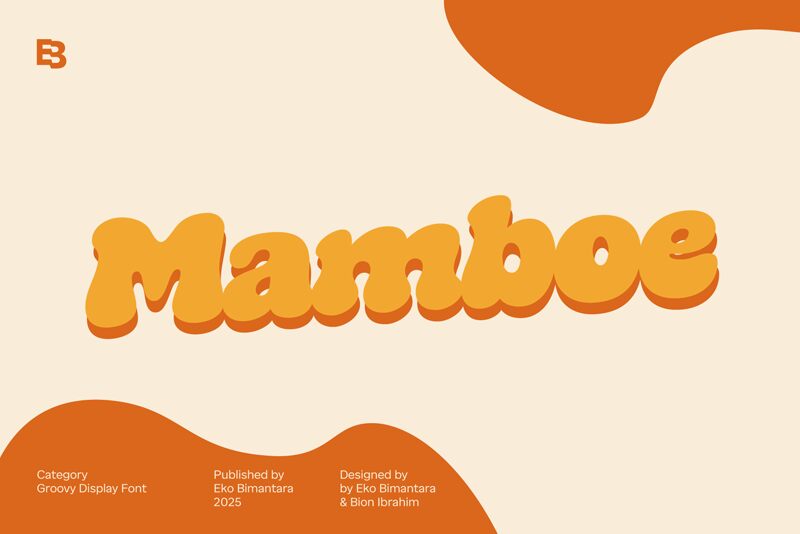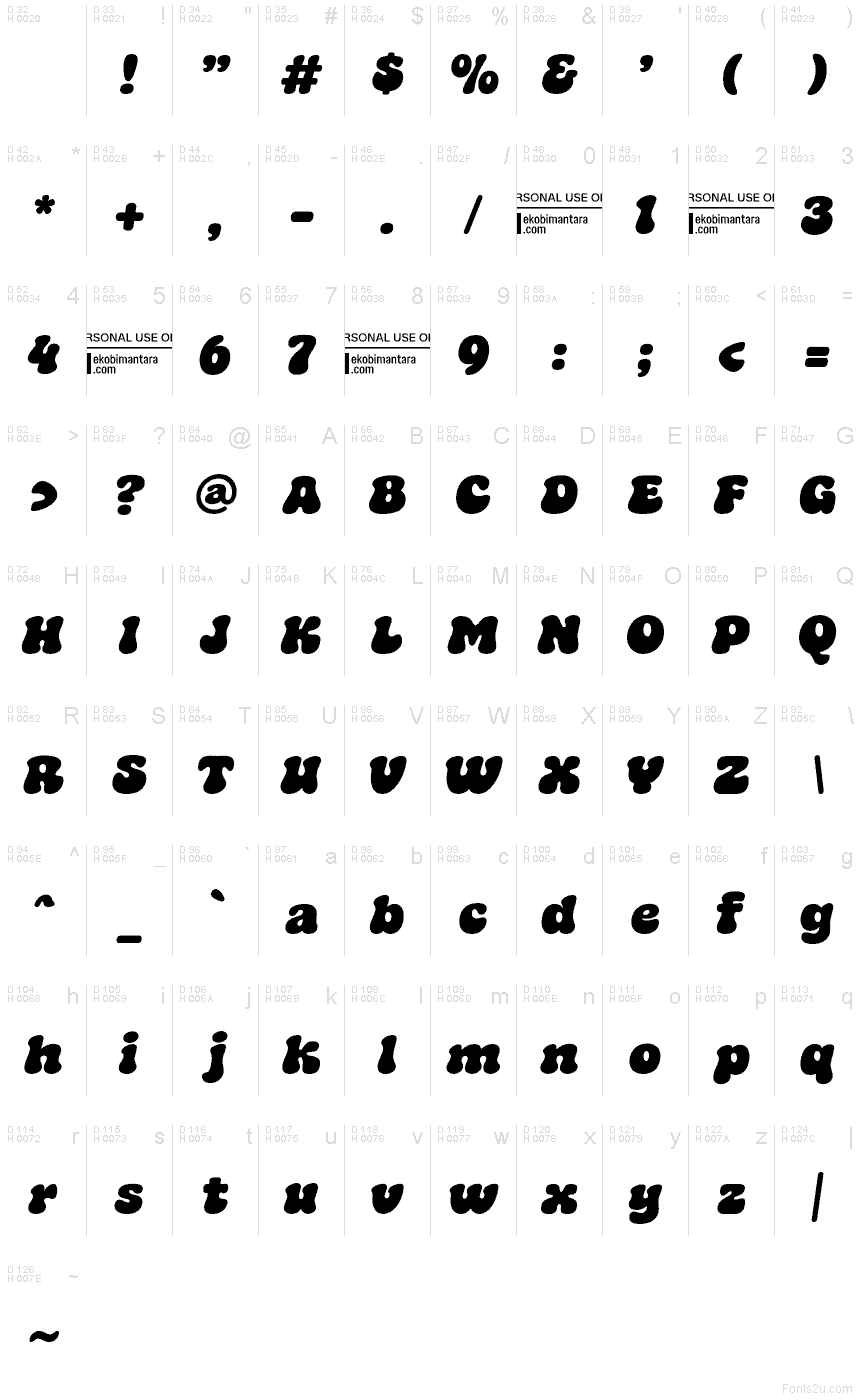
Mamboe Trial Regular
Mamboe font by Eko Bimantara is a free groovy display typeface with plush, syrupy curves and a buoyant rhythm. Its swollen strokes and rounded counters feel inky and tactile, giving headlines an instant, dance-floor swagger while staying easy to read at a glance. The letters lock together with a smooth, rolling cadence that delivers plenty of personality without chaos.
Using Mamboe, your posters, music event flyers, snack or beverage packaging, social media promos, stickers, and bold logotypes all gain that soft-but-loud vibe. This free font shines at large sizes; give it a little breathing room and let the curves do the talking. For balance, pair it with a crisp, unobtrusive grotesk in small text.